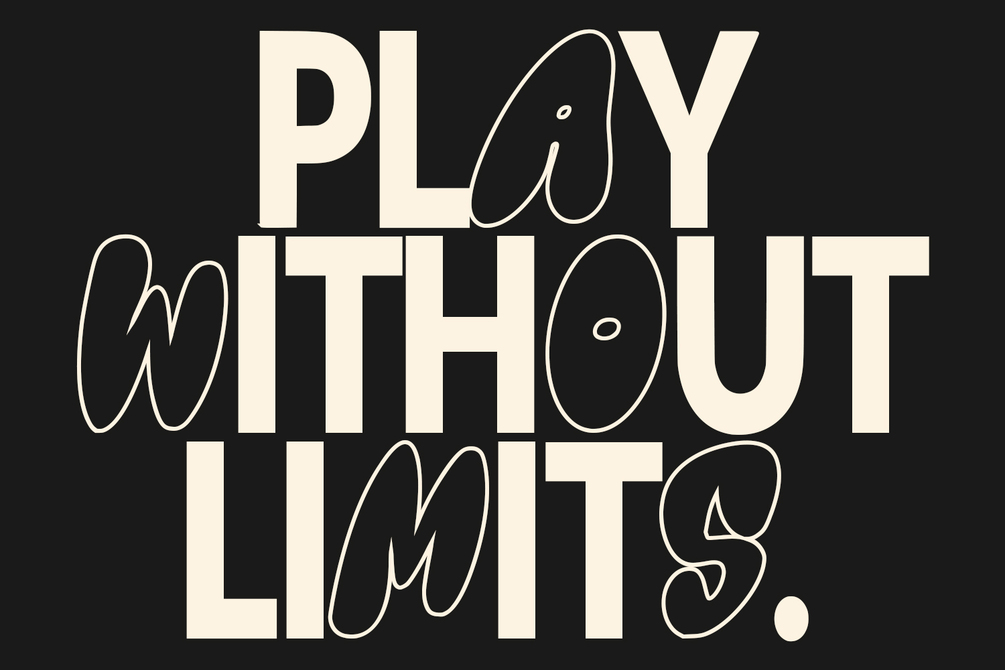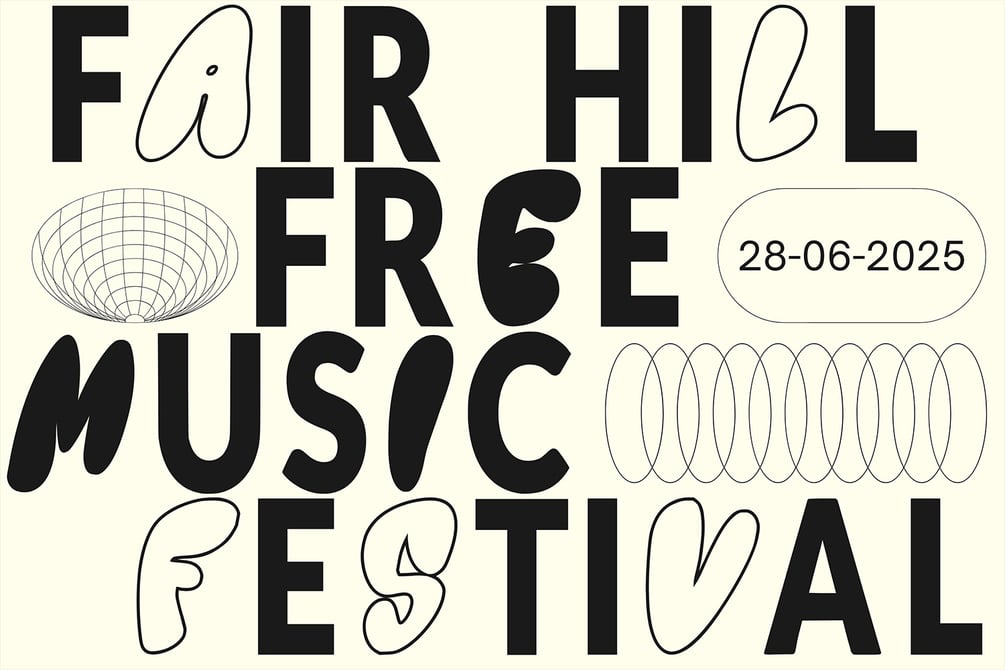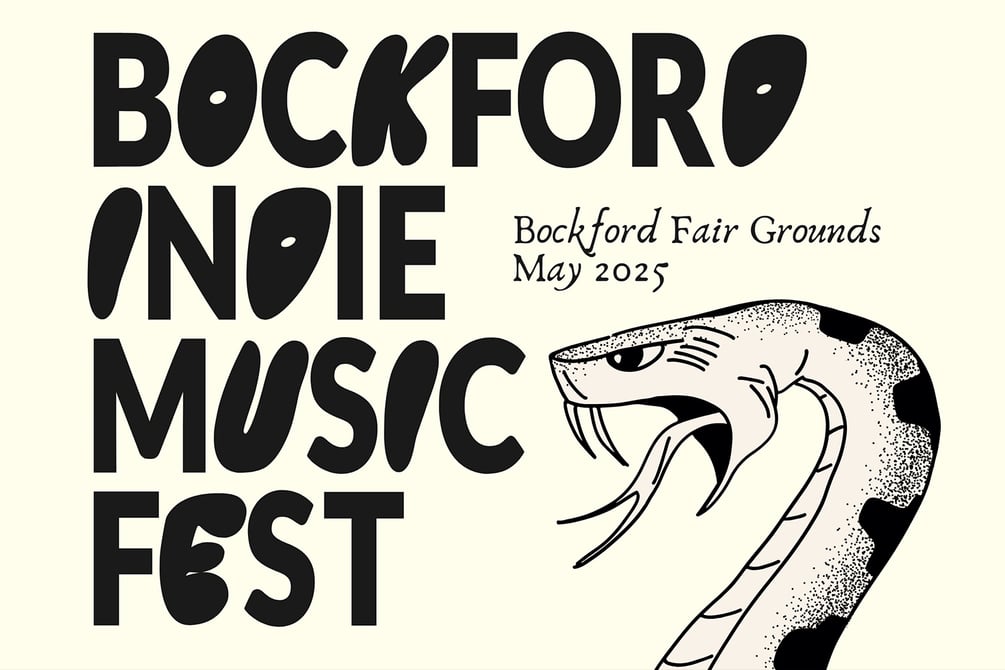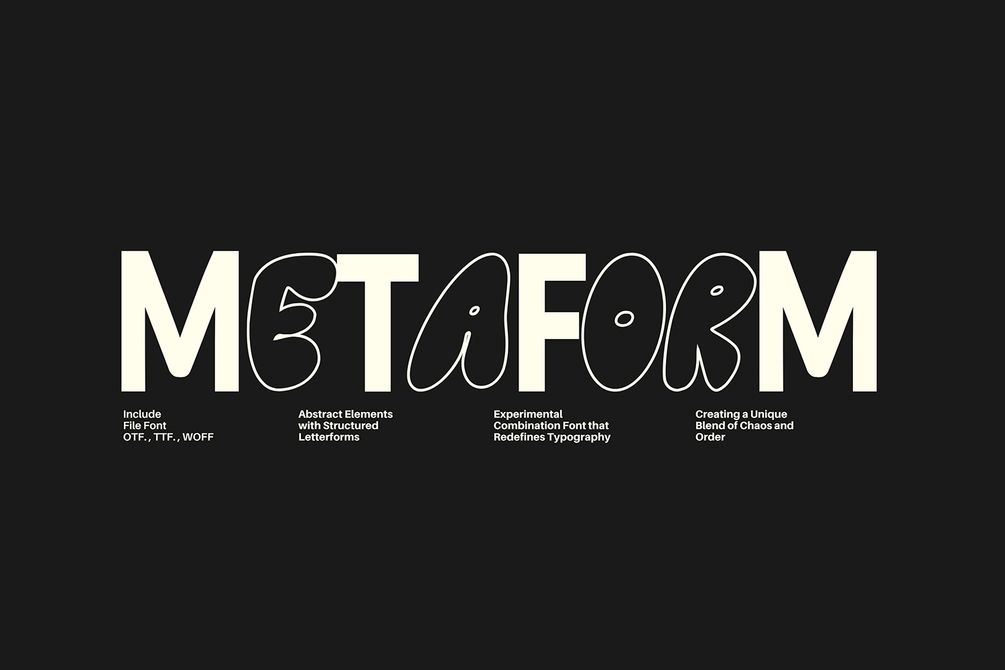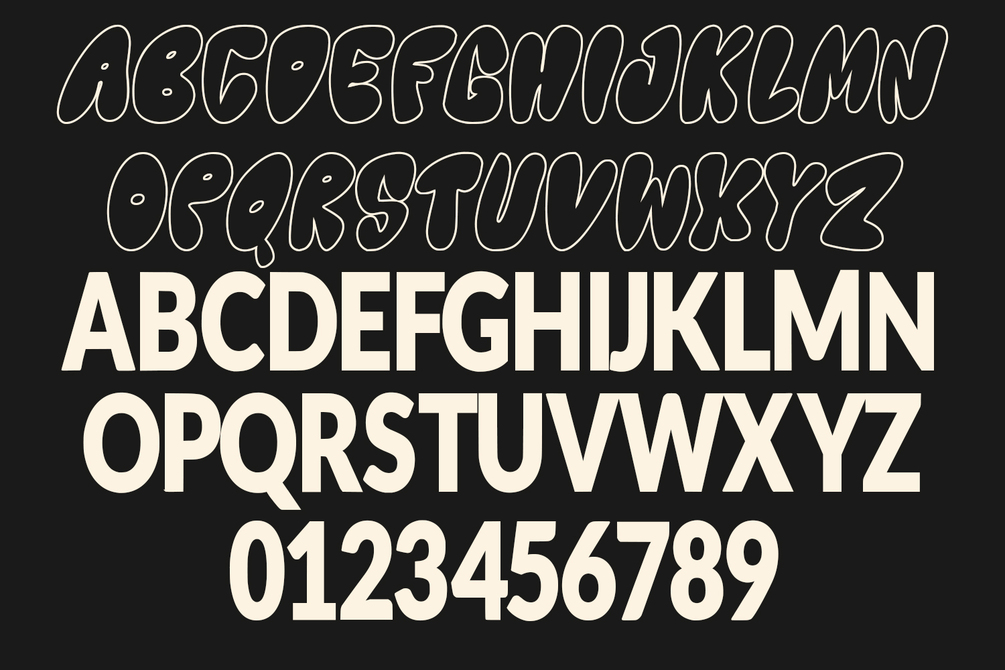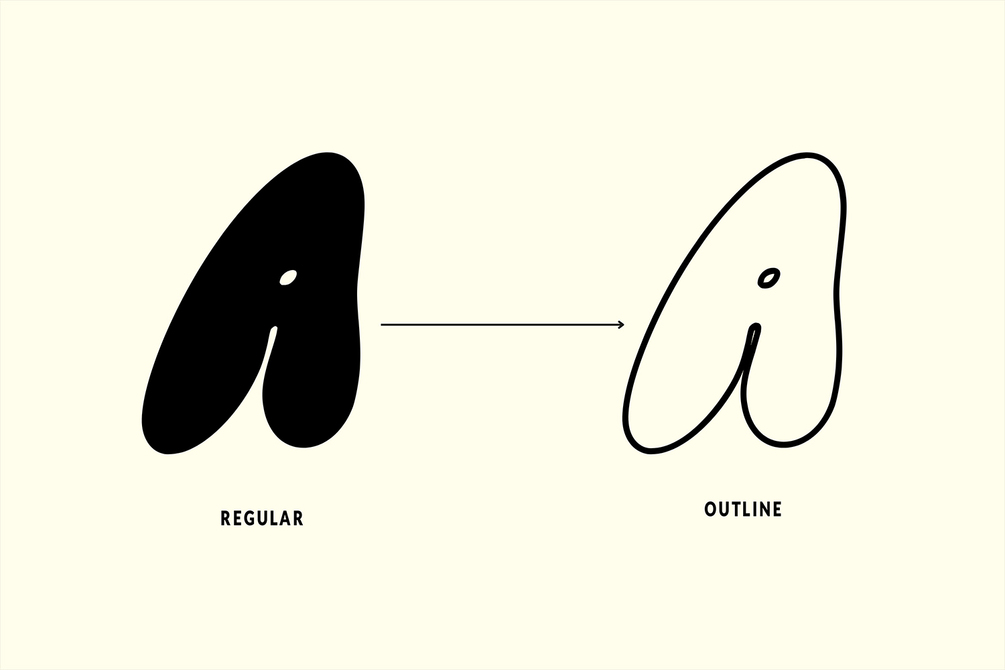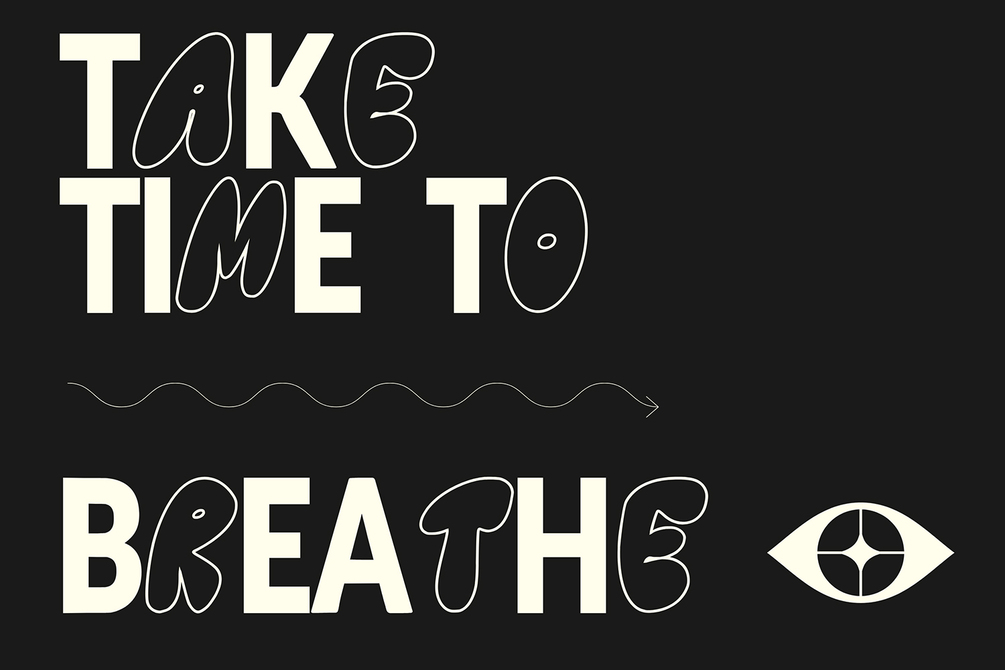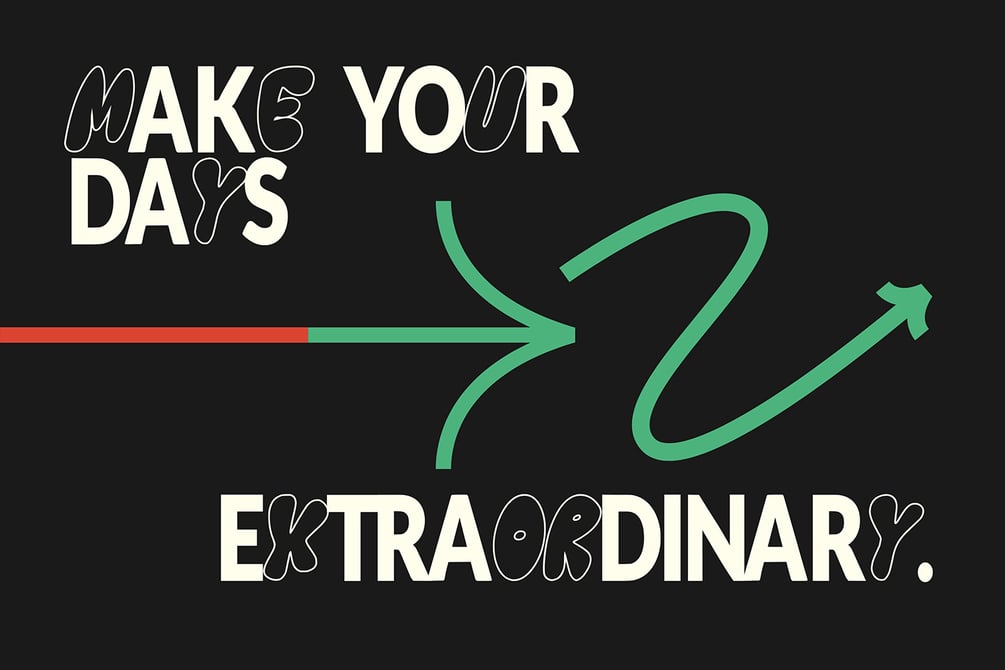
Metaform
Metaform: An Experimental Combination Font
Metaform is a daring and innovative typeface that pushes the boundaries of traditional typography. Designed for creatives who love to break the mold, this font combines abstract elements with structured letterforms, creating a unique blend of chaos and order.
Key Features:
- Hybrid Design: Metaform merges geometric shapes, fragmented lines, and unconventional curves to craft a font that feels modern yet experimental.
- Versatile Styles: Perfect for projects ranging from avant-garde posters, album covers, and branding to experimental web design and editorial layouts.
- Dynamic Aesthetic: The font balances bold, striking visuals with subtle nuances, making it both eye-catching and versatile.
- Customizable Layers: Metaform offers flexibility with layered options for creating unique visual effects.
The Experimental Edge:
Metaform isn’t just a font—it’s an artistic statement. It invites designers to think beyond the norm and explore new realms of creativity. Whether you’re looking to make a bold headline or add a touch of abstract sophistication, Metaform’s unique style can transform your designs into a visual experience.
Who It’s For:
Metaform is ideal for forward-thinking designers, experimental artists, and brands that want to stand out with a typeface that challenges conventions and embraces creativity.
Take your designs into uncharted territory with Metaform—the experimental combination font that redefines typography.